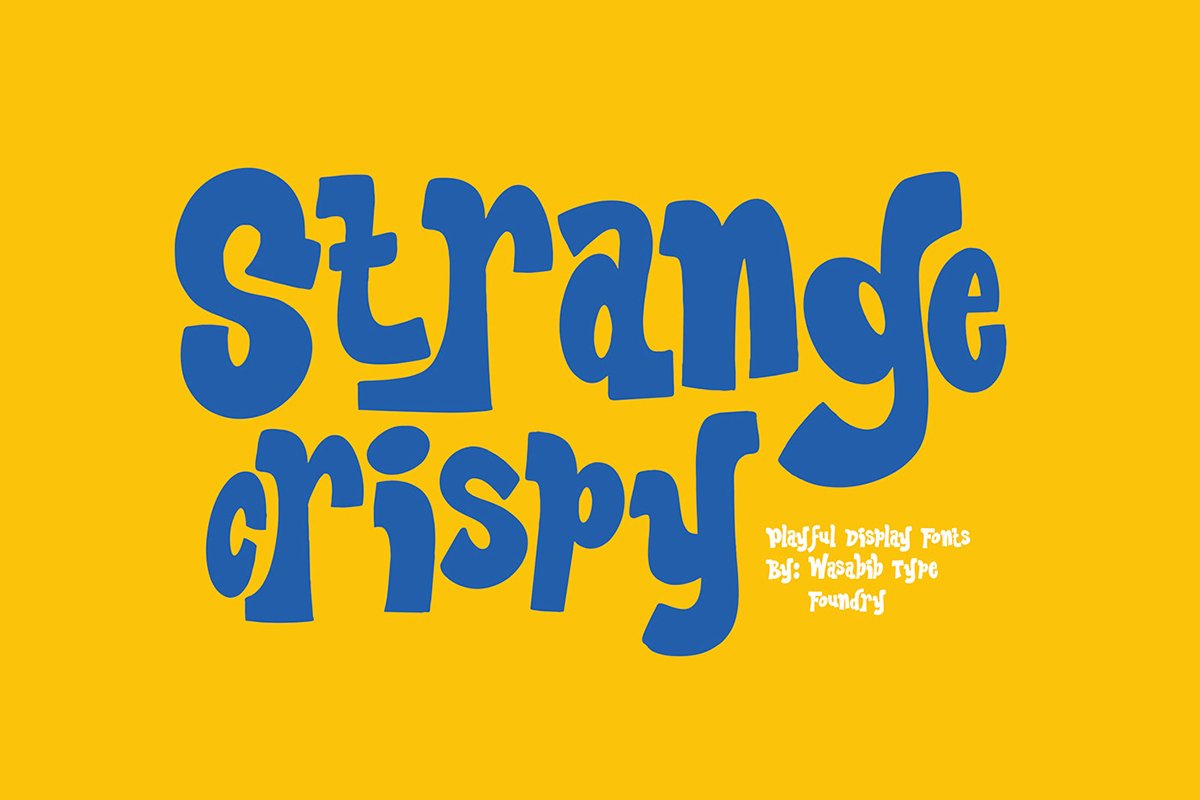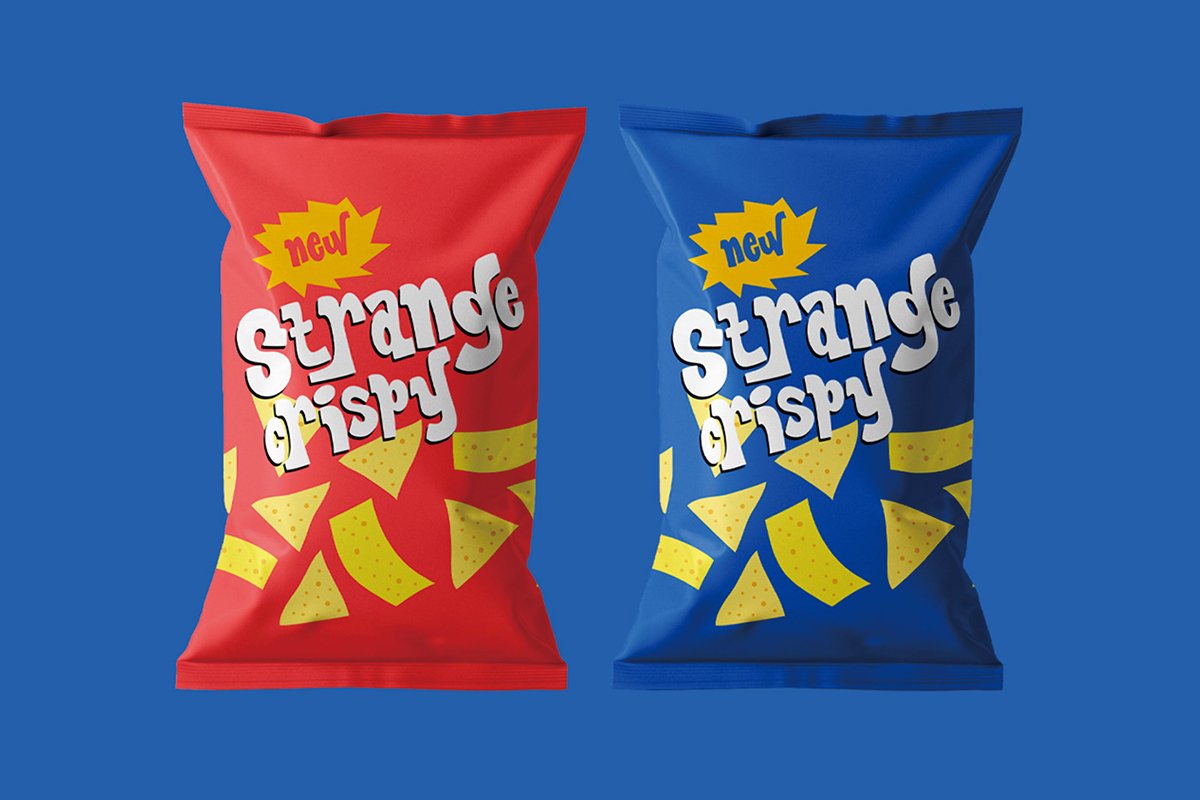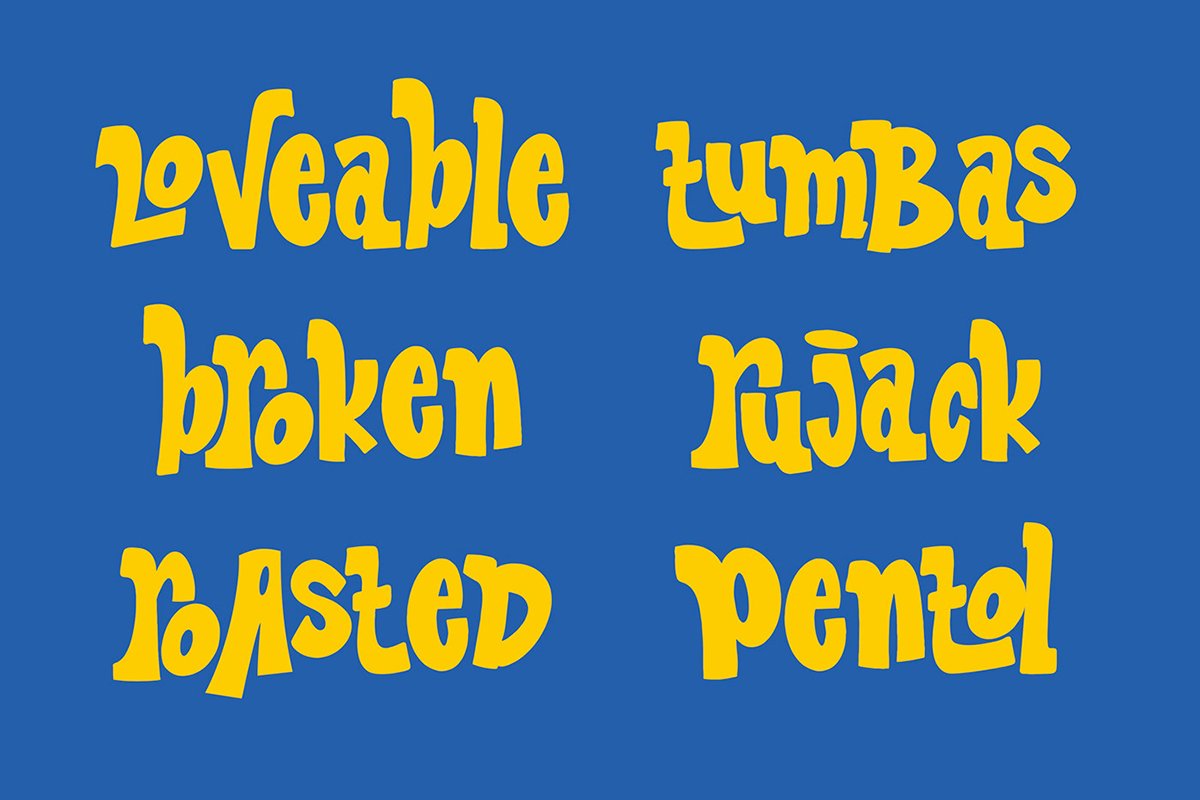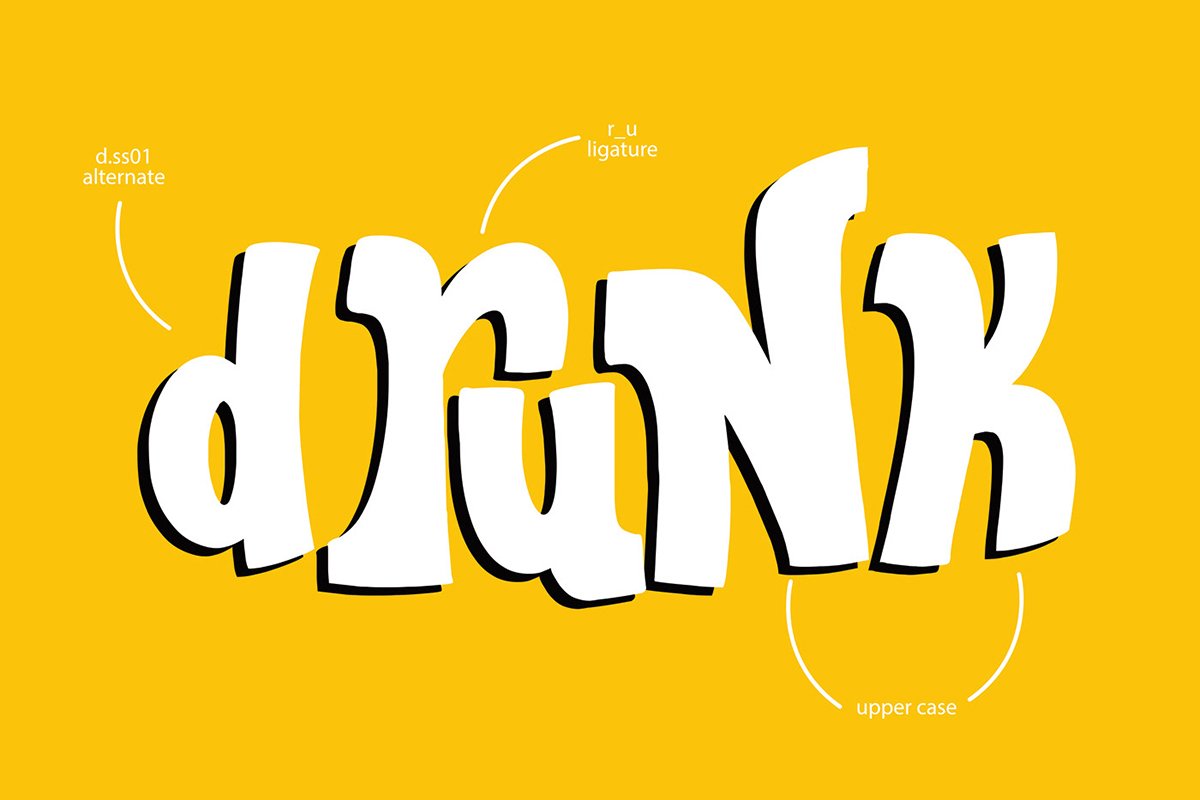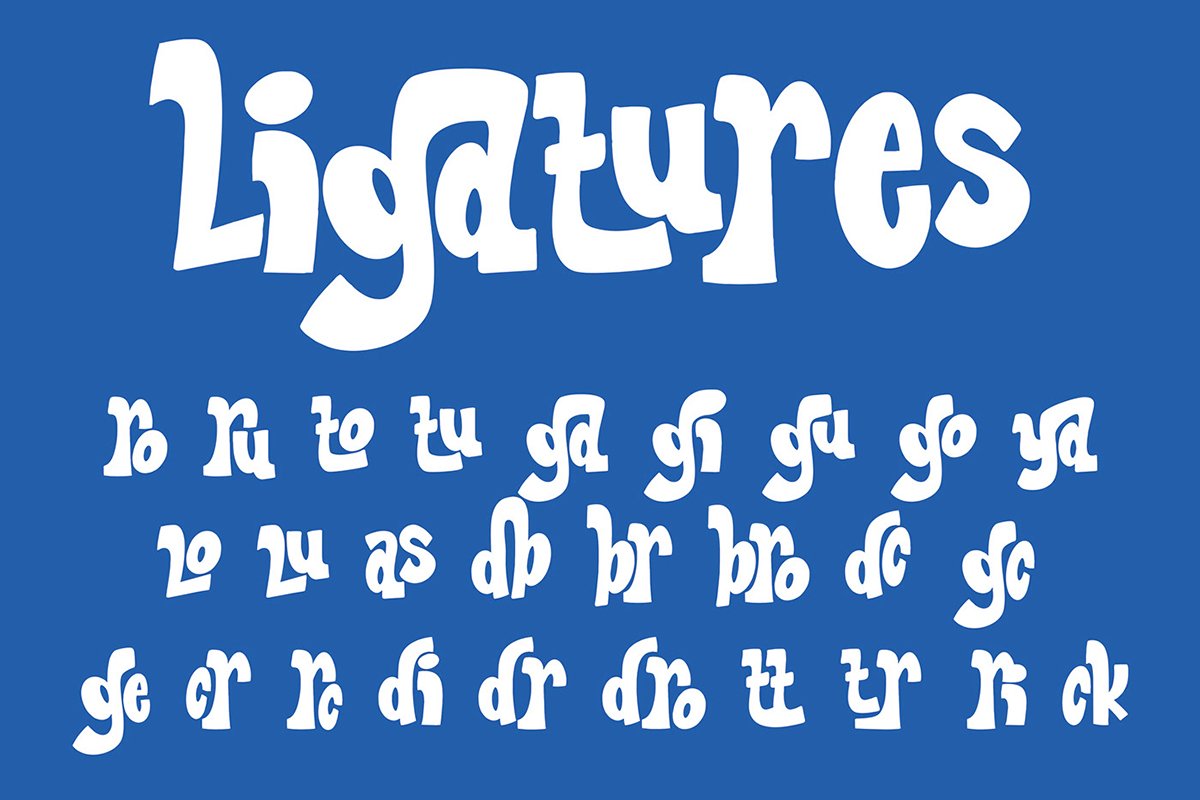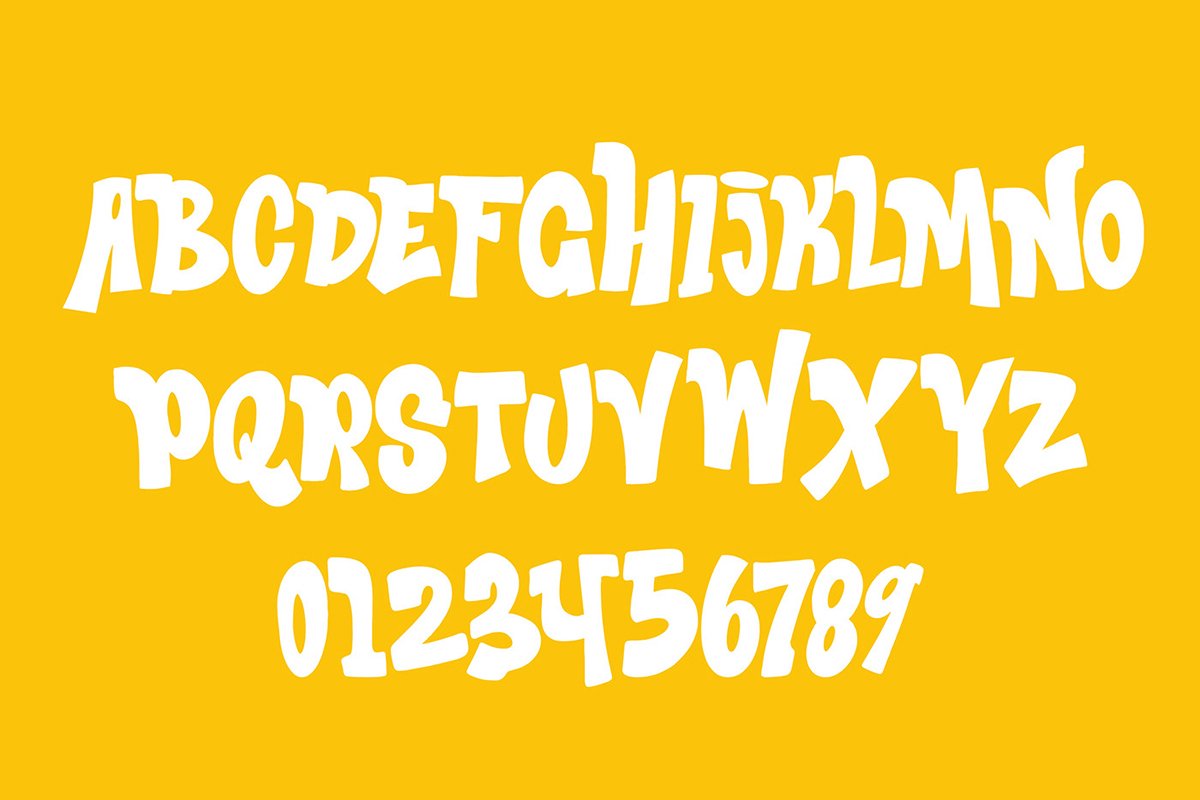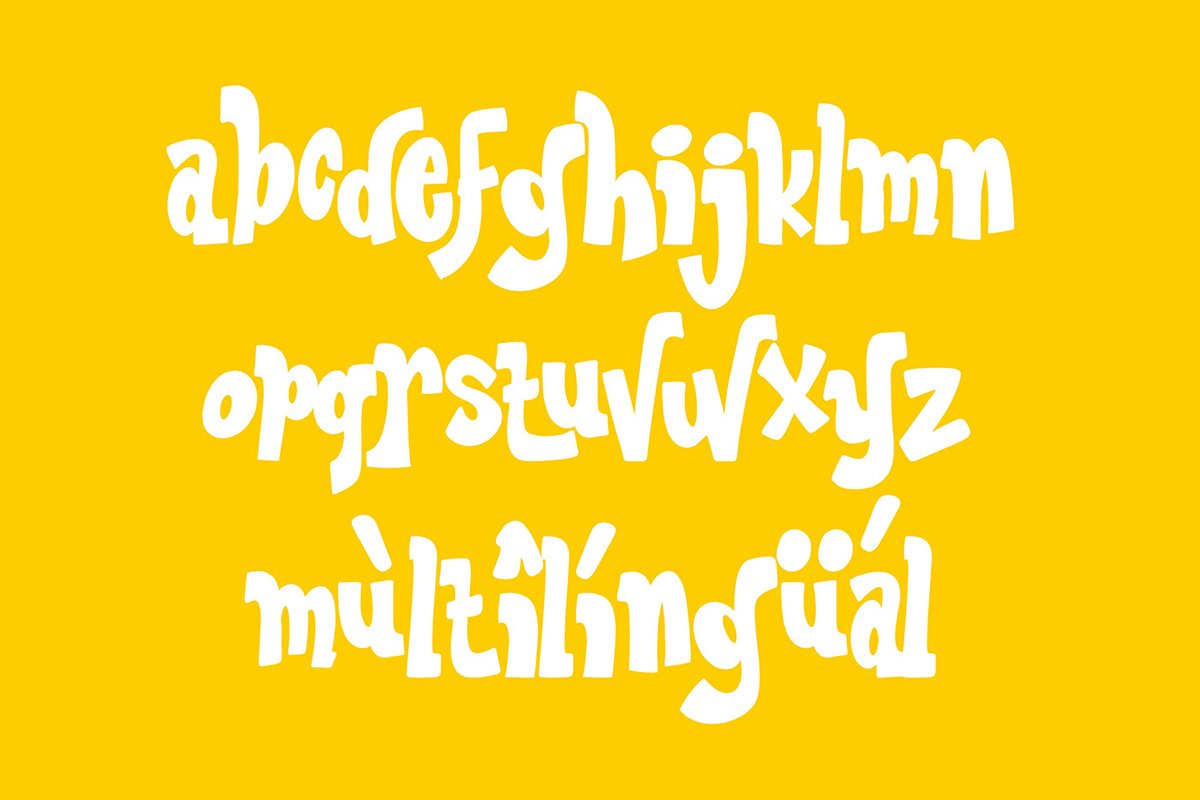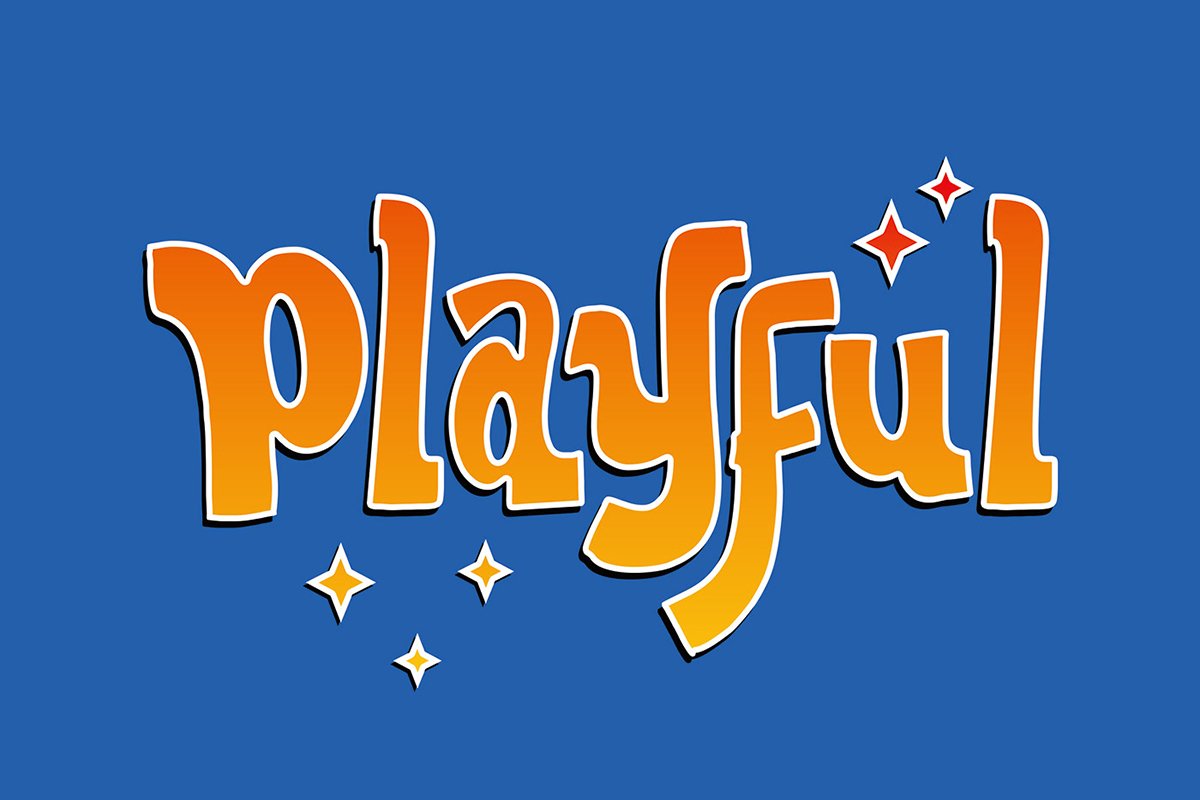
Strange Crispy – Display Font is a playful bounced display font that inspired by retro typeface, it comes with 100% hand-drawn characters to get the artistic look. It is definitely will make your design stand out. You can mix between upper case on lower case for your typography or logotype.
Strange Crispy